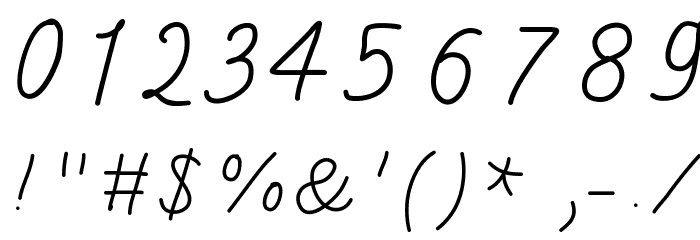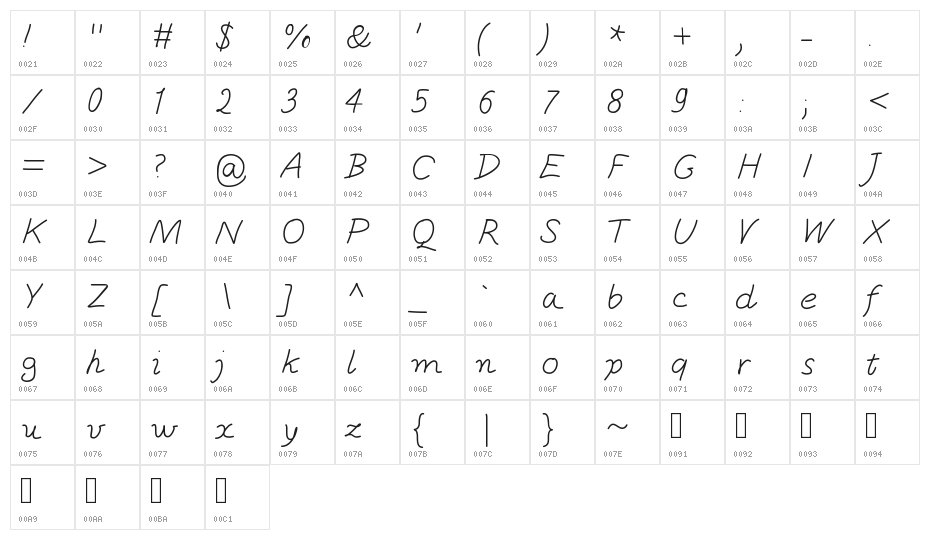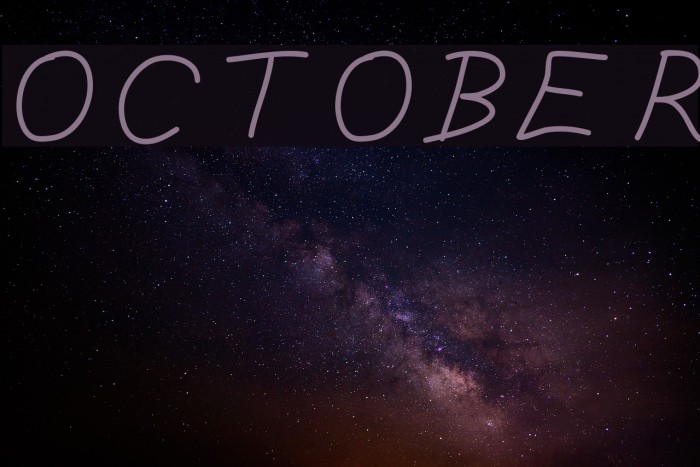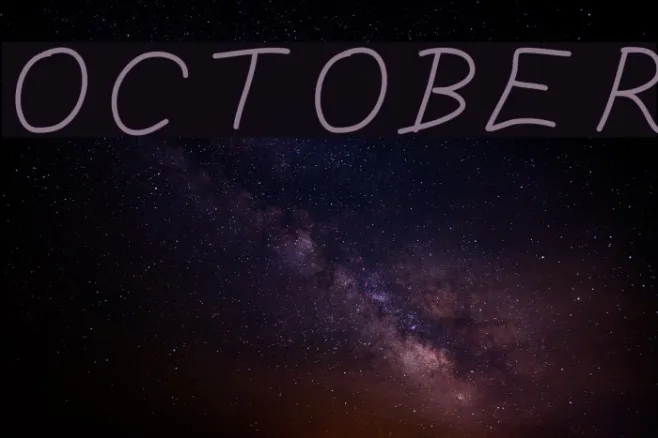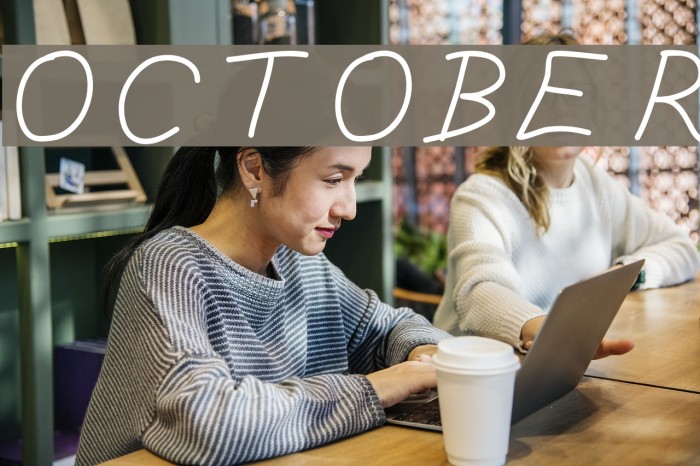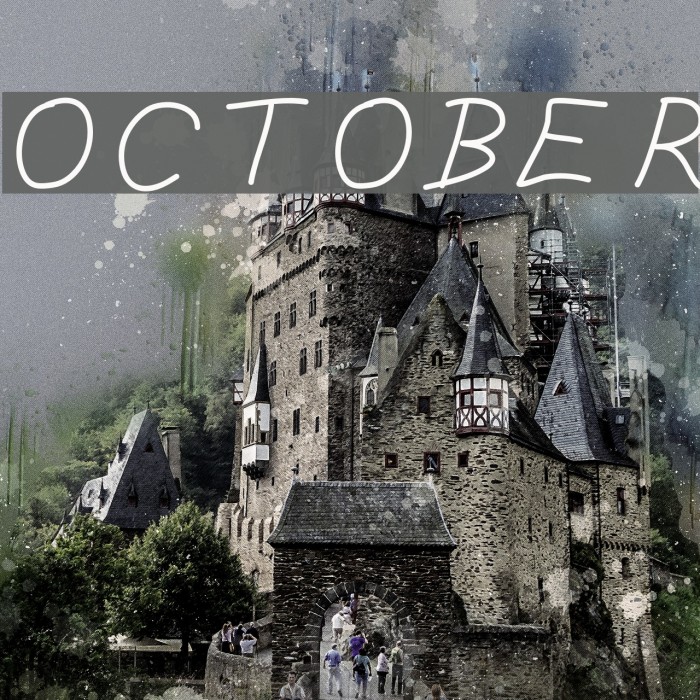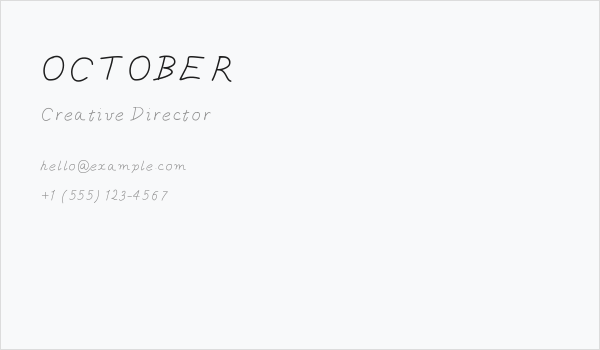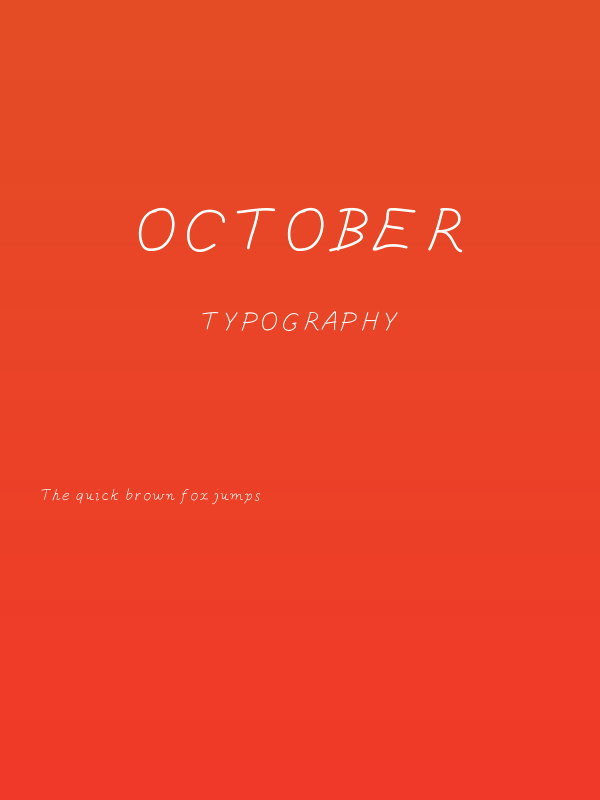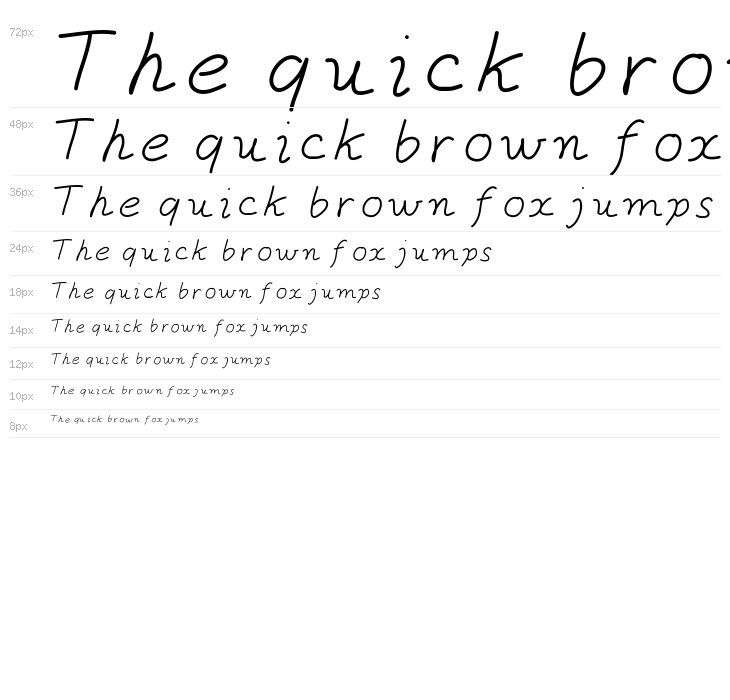
OCTOBER Font
OCTOBER Description
This font features a handwritten style with a casual and flowing appearance. The characters are slightly slanted, giving it a dynamic and informal look. The strokes are smooth and consistent, with a medium thickness that maintains readability while adding a personal touch. The uppercase letters are slightly larger than the lowercase, maintaining a balanced proportion. Numbers and special characters are designed to match the overall style, ensuring a cohesive look across different text elements. The font's playful yet elegant nature makes it versatile for various creative applications.
| Overall Style | Casual, Elegant |
| Proposed Projects | Ideal for greeting cards, personal branding, invitations, and creative projects that require a personal touch. |